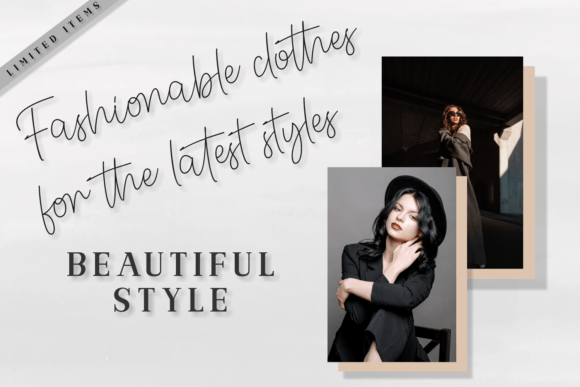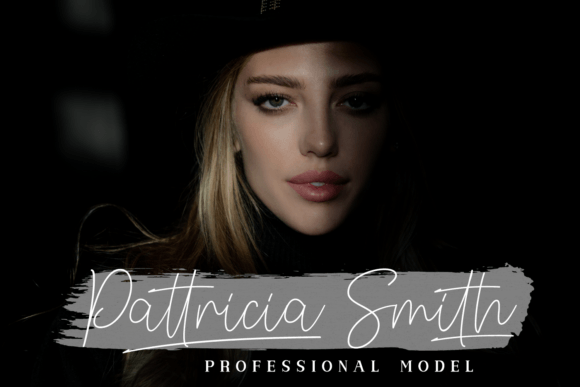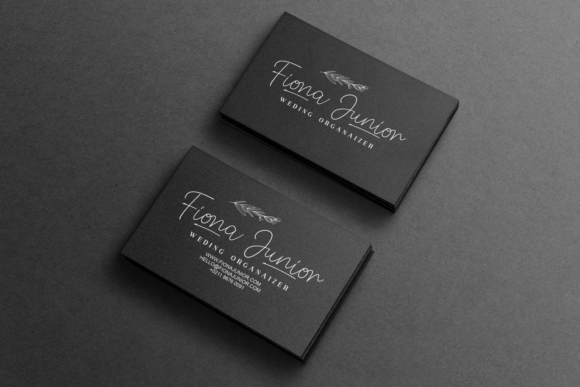
Billion Signature Font
Billion Signature is a stylish and elegant script font that perfectly captures the romantic feel of old-fashioned handwritten letters. It’s perfect for creating a sophisticated look for any project. Its smooth curves, fancy swirls, and attractive flourishes make it the perfect choice for invitations, posters, and other special occasions.This font is PUA encoded which means you can access all glyphs and swashes effortlessly!